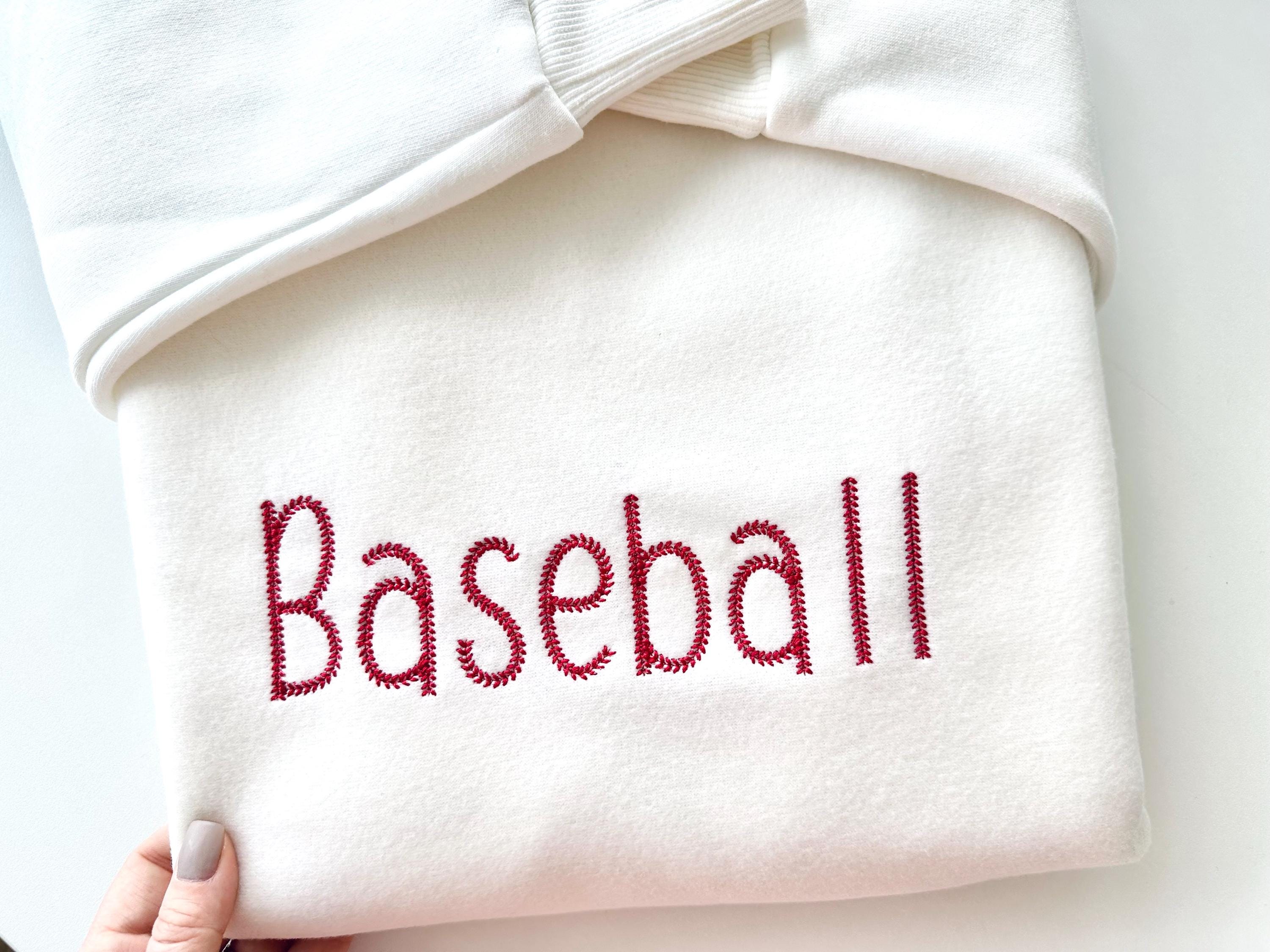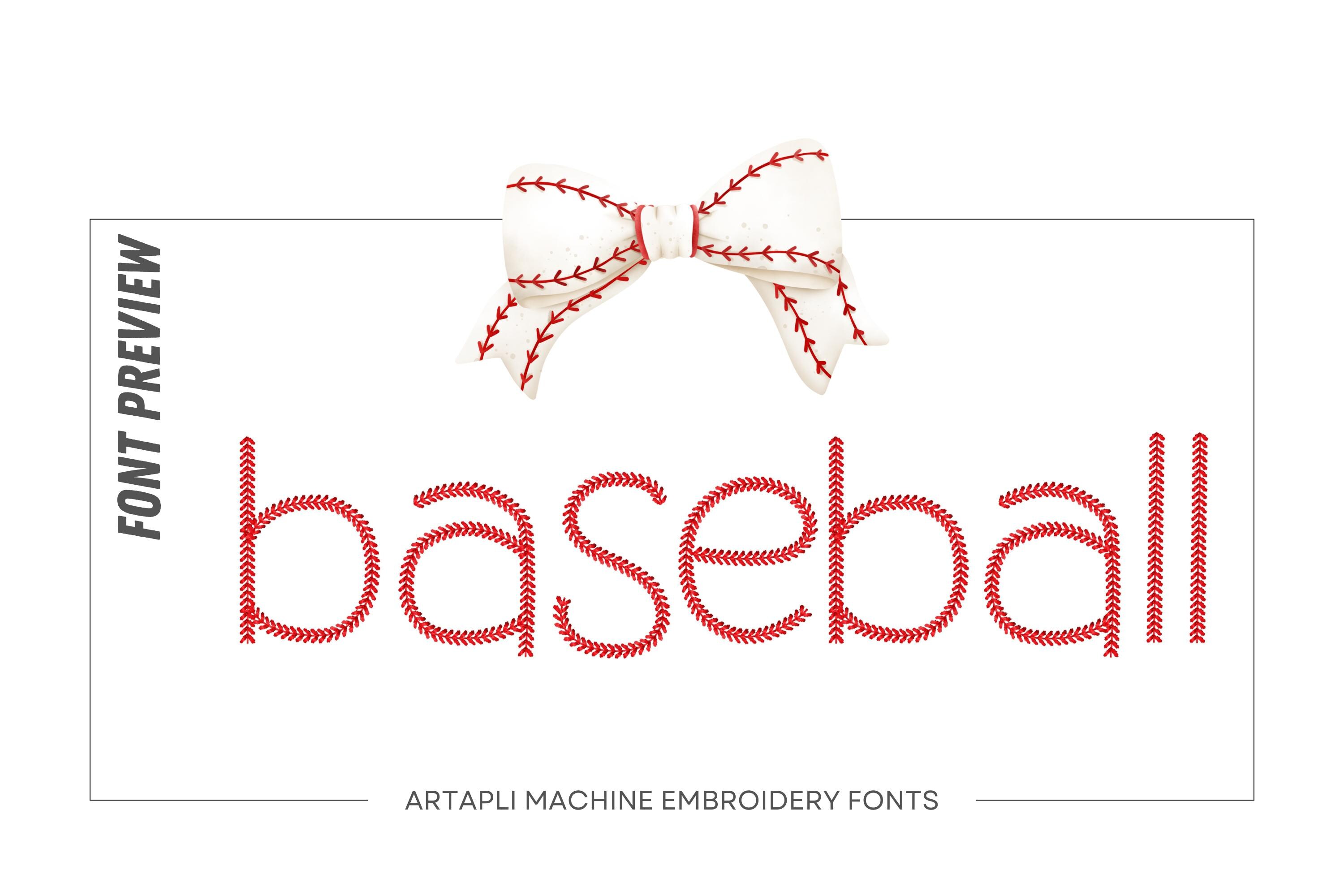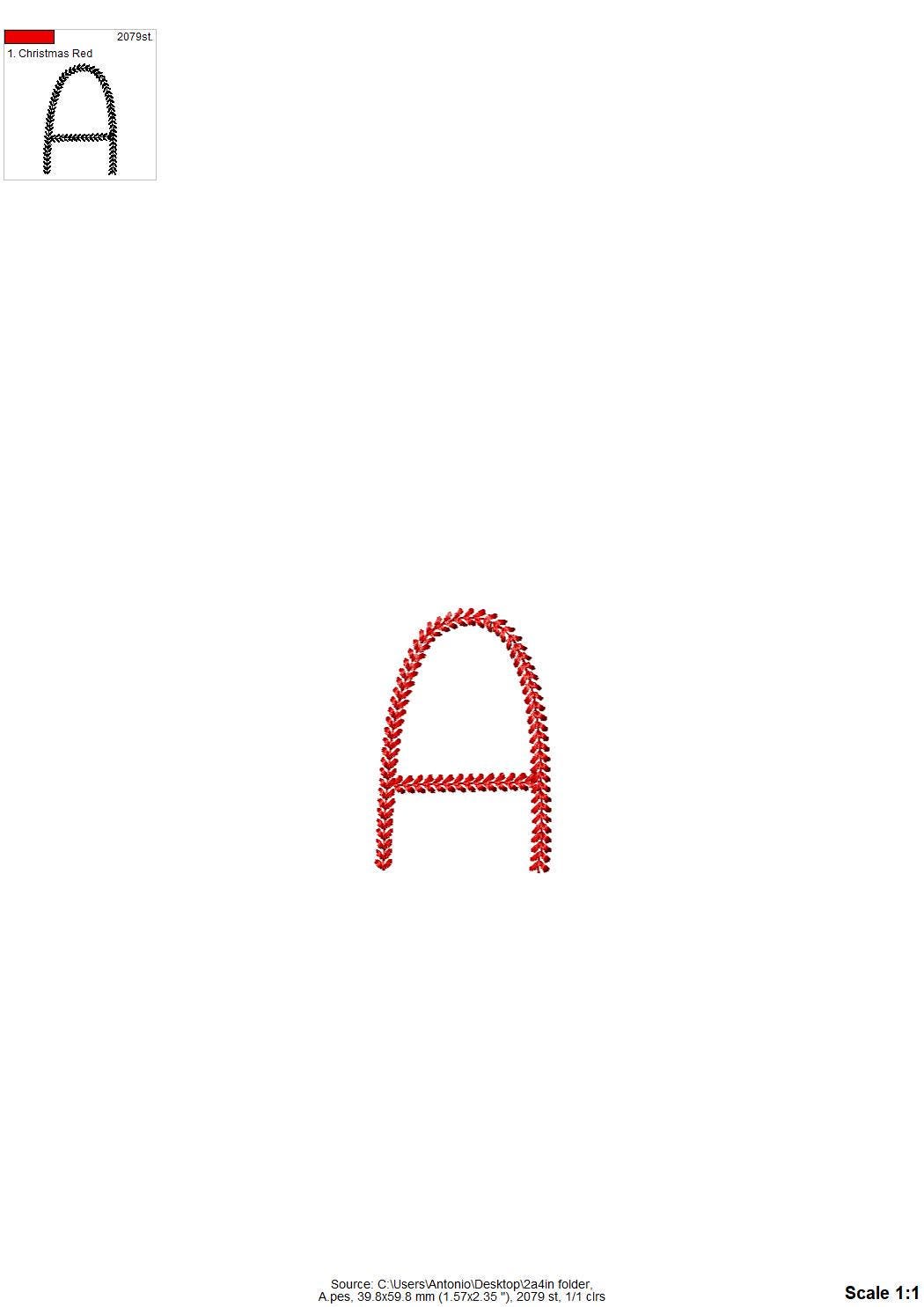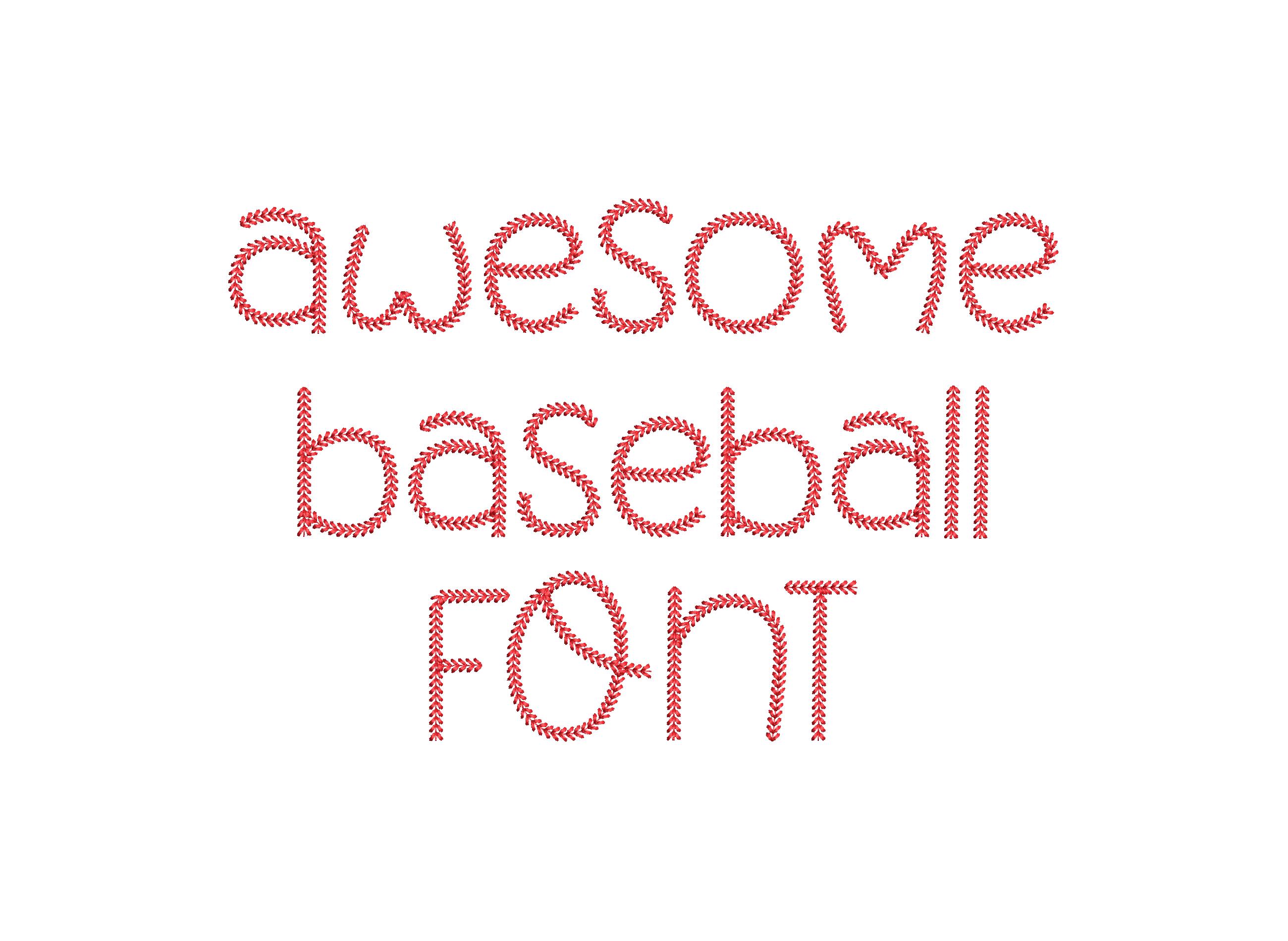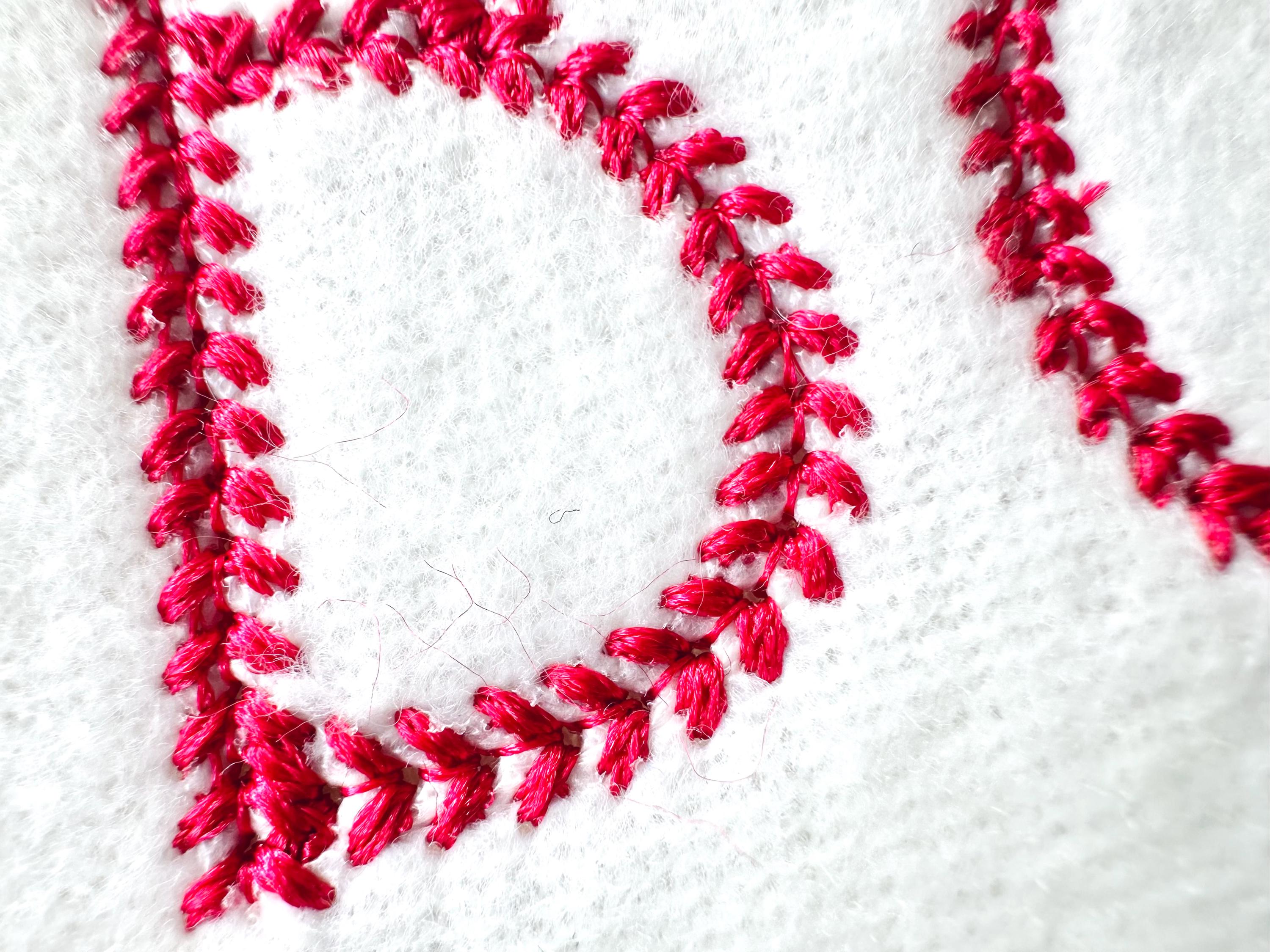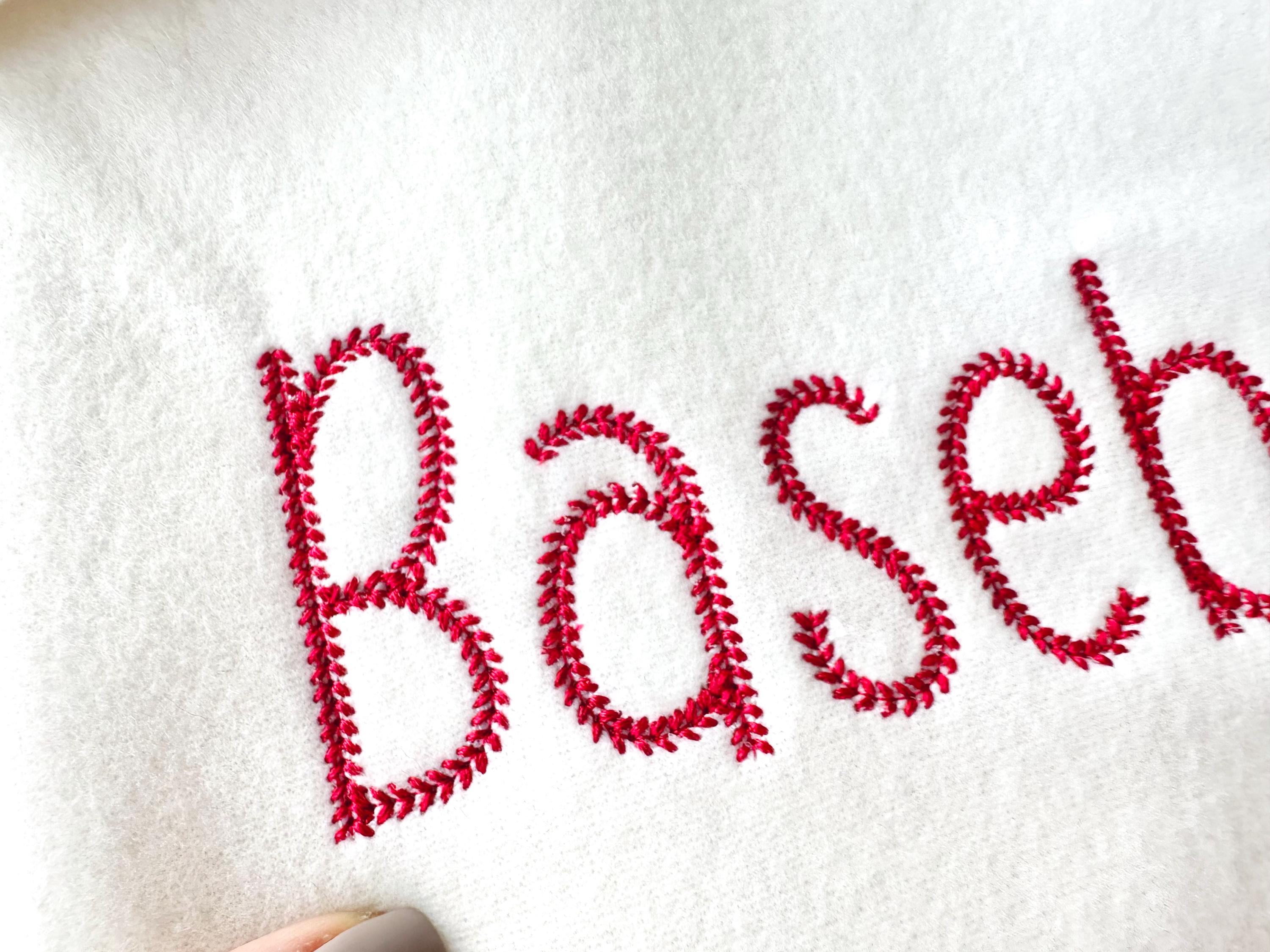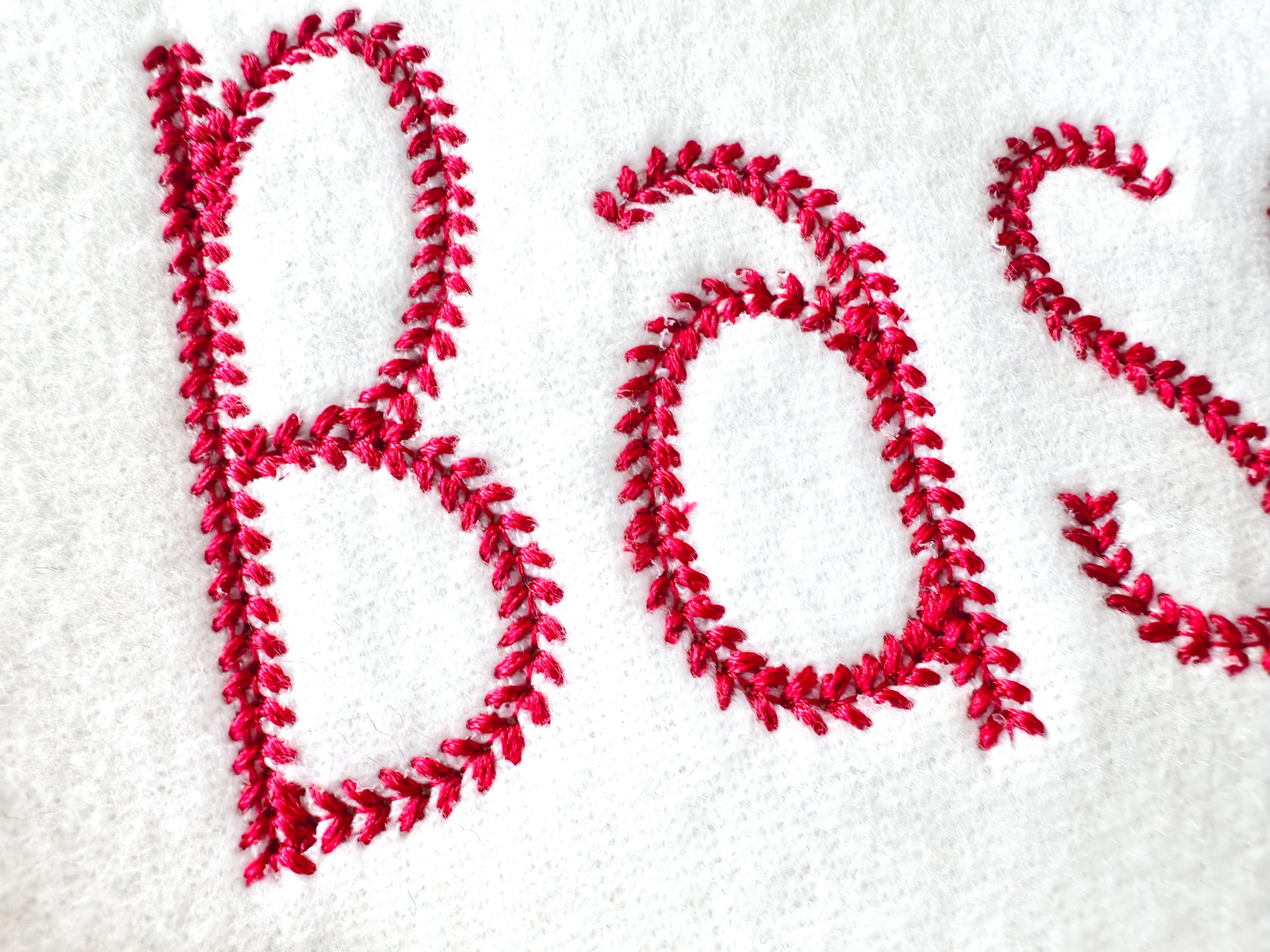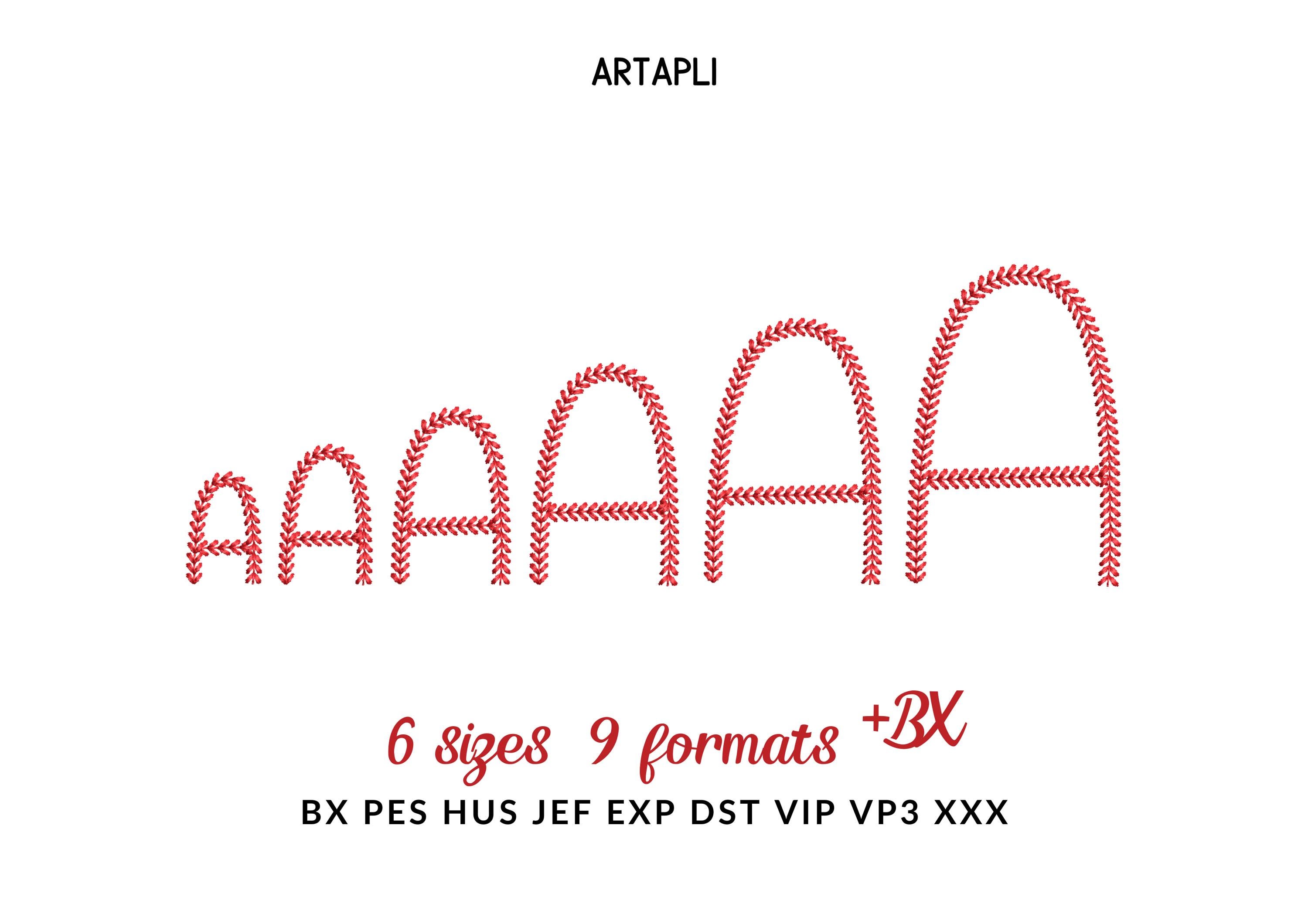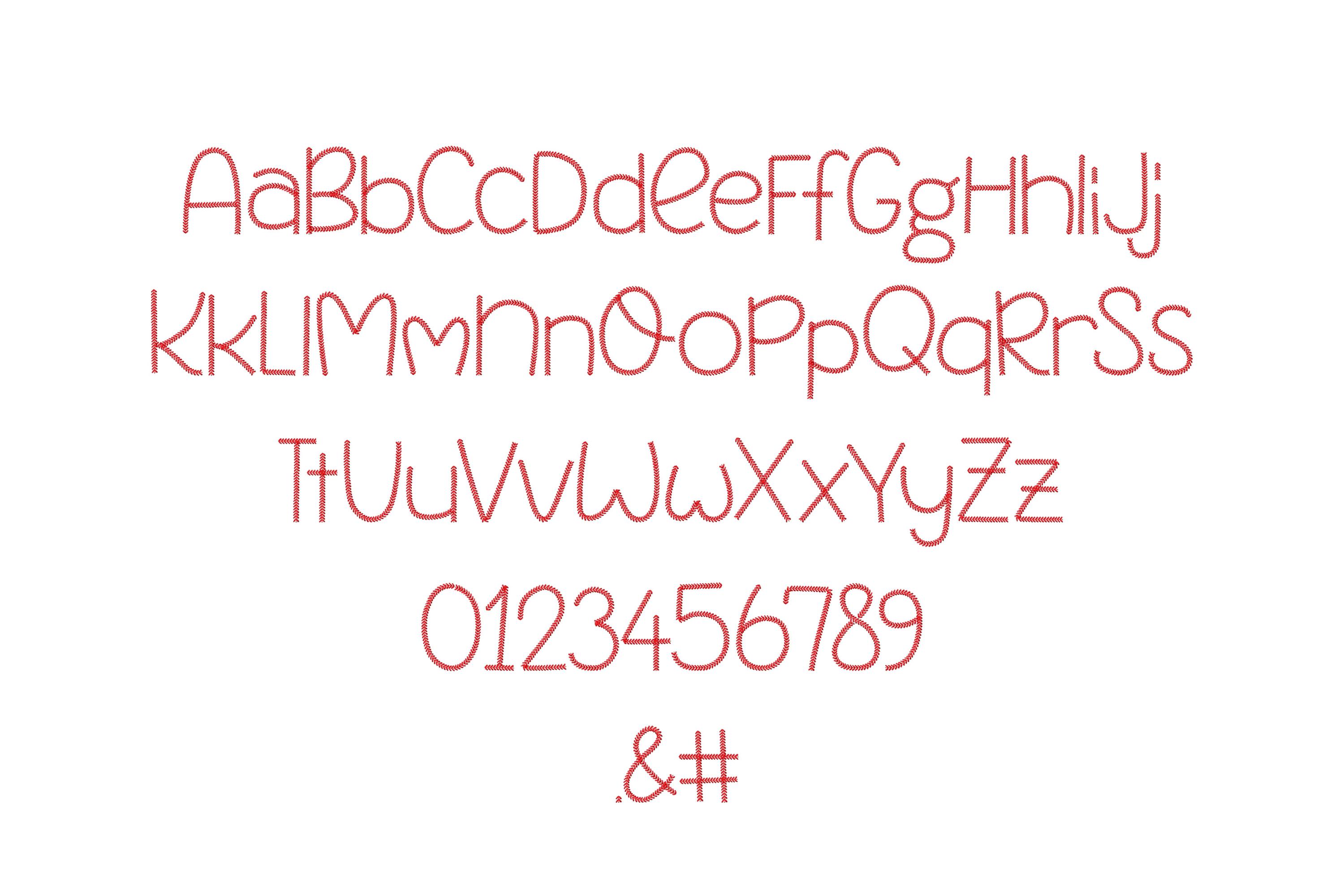
Awesome Baseball FONT softball sports kids baseball stitch alphabet letters machine embroidery designs assorted sizes 1 up to 2.8 inches, BX
Whole alphabet Aa-Zz uppercase and lowercase letters, numbers 0-9, and punctuation as shown in the images.
Awesome Baseball FONT - This is a unique stitch type Font, that imitates the iconic stitching found on a baseball, making it perfect for adding a bold, sporty touch to your embroidery projects.